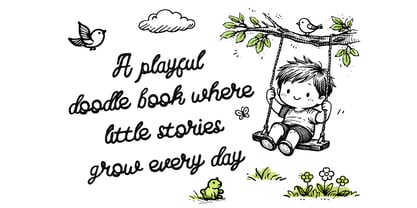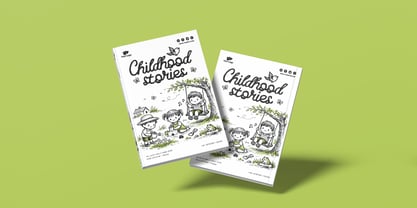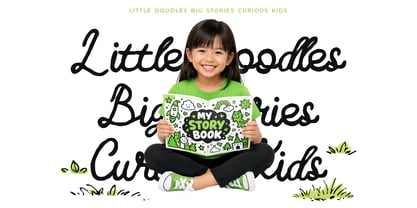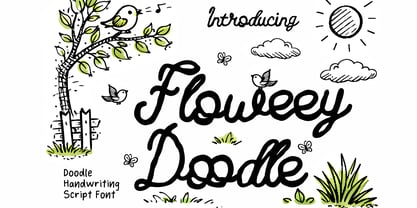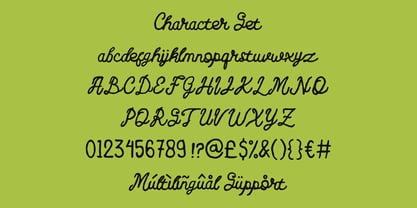
Floweey Doodle
by Shanaf
The Floweey Doodle Font Family was designed by Yesie Erma Yunita and published by Shanaf. Floweey Doodle contains 1 styles. More about this family
FloweeyDoodle Doodle Handwriting Script Font captures the charm of natural pen strokes with a relaxed rhythm and rounded flow. The letterforms feature medium stroke weight with soft curves and smooth connections. Each character shows subtle variation in height and baseline, creating an organic handwritten impression. The ascenders rise tall and lively, while descenders swing gently for balance. The script structure feels fluid, yet remains readable for headlines and short paragraphs. This font belongs to the playful doodle and casual script category. It works beautifully for logo design, creative branding, children book covers, story titles, greeting cards, stickers, posters, and social media headlines. FloweeyDoodle Doodle Handwriting Script Font brings a friendly personality that fits education brands, kids publishing, handmade products, creative studios, and personal projects. The uppercase set presents expressive swashes and confident strokes that suit logo marks and brand signatures. The lowercase characters flow smoothly, making them ideal for quotes, invitations, packaging labels, magazine covers, and craft projects. Numbers and punctuation maintain the same hand drawn energy, ensuring visual consistency across layouts. The overall style blends modern casual script with doodle inspired detailing. It supports multilingual characters, which helps global branding efforts. The font pairs well with illustration based themes, storytelling concepts, and cheerful marketing campaigns. Designers can use it for branding small businesses, creative workshops, art classes, stationery brands, and educational materials. FloweeyDoodle Doodle Handwriting Script Font adds warmth and approachability without losing clarity.
Designers: Yesie Erma Yunita
Foundry: Shanaf